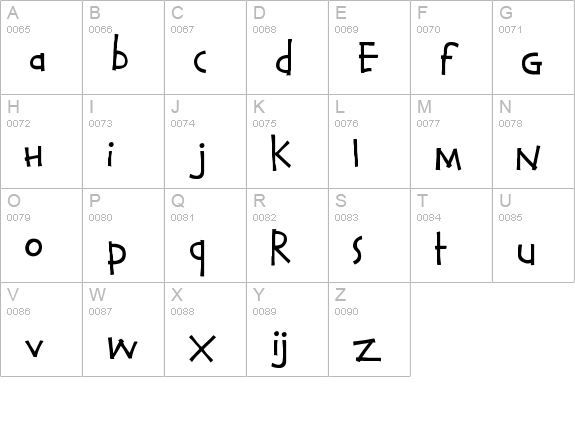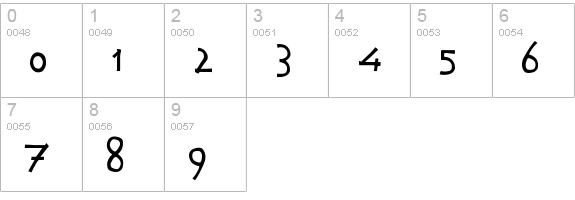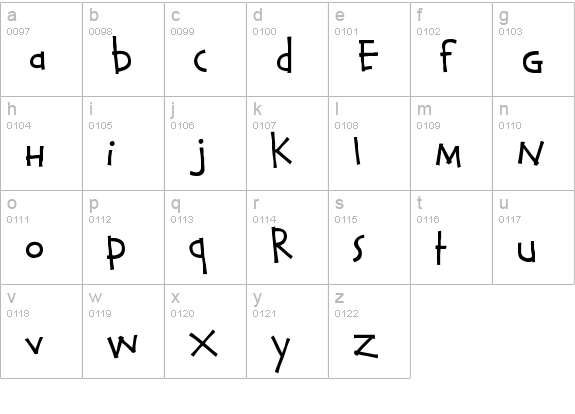
Calvin and Hobbes Normal is the standard, neutral variant in the Calvin typeface family \xE2\x80\x94 well suited to general body text, paragraphs, and standard typographic work.
Calvin and Hobbes Normal font is a playful and whimsical typeface inspired by the beloved comic strip characters created by Bill Watterson. This font captures the essence of Calvin's mischievous spirit and Hobbes' wise demeanor, making it a fun and friendly choice for various design projects. With its clean lines and smooth curves, Calvin and Hobbes Normal font is perfect for adding a touch of charm and personality to your creations. Best of all, this font is freely available to download at FontsMarket.com, so you can easily incorporate it into your designs without any hassle. Let your imagination run wild with Calvin and Hobbes Normal font and bring a sense of adventure to your work!